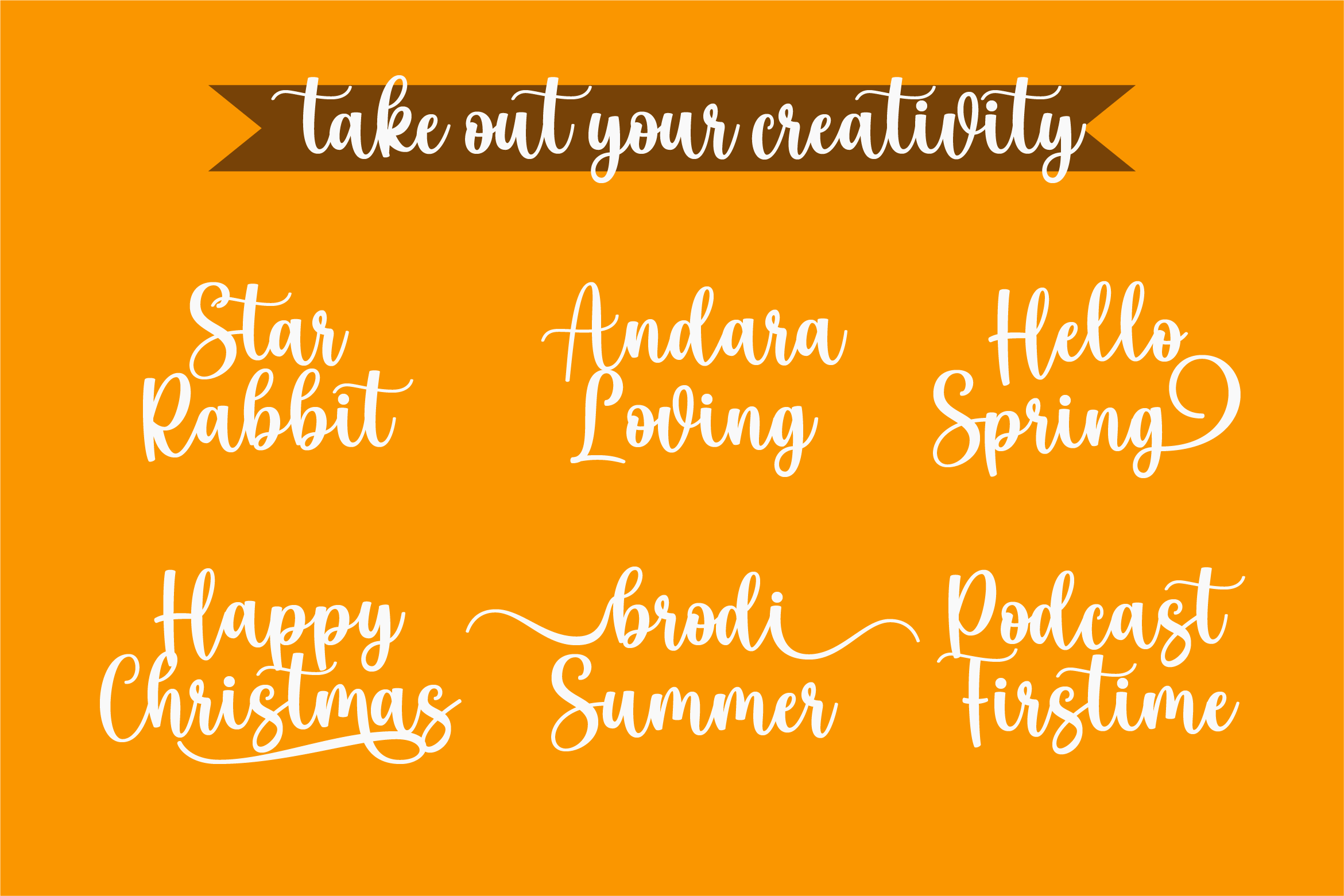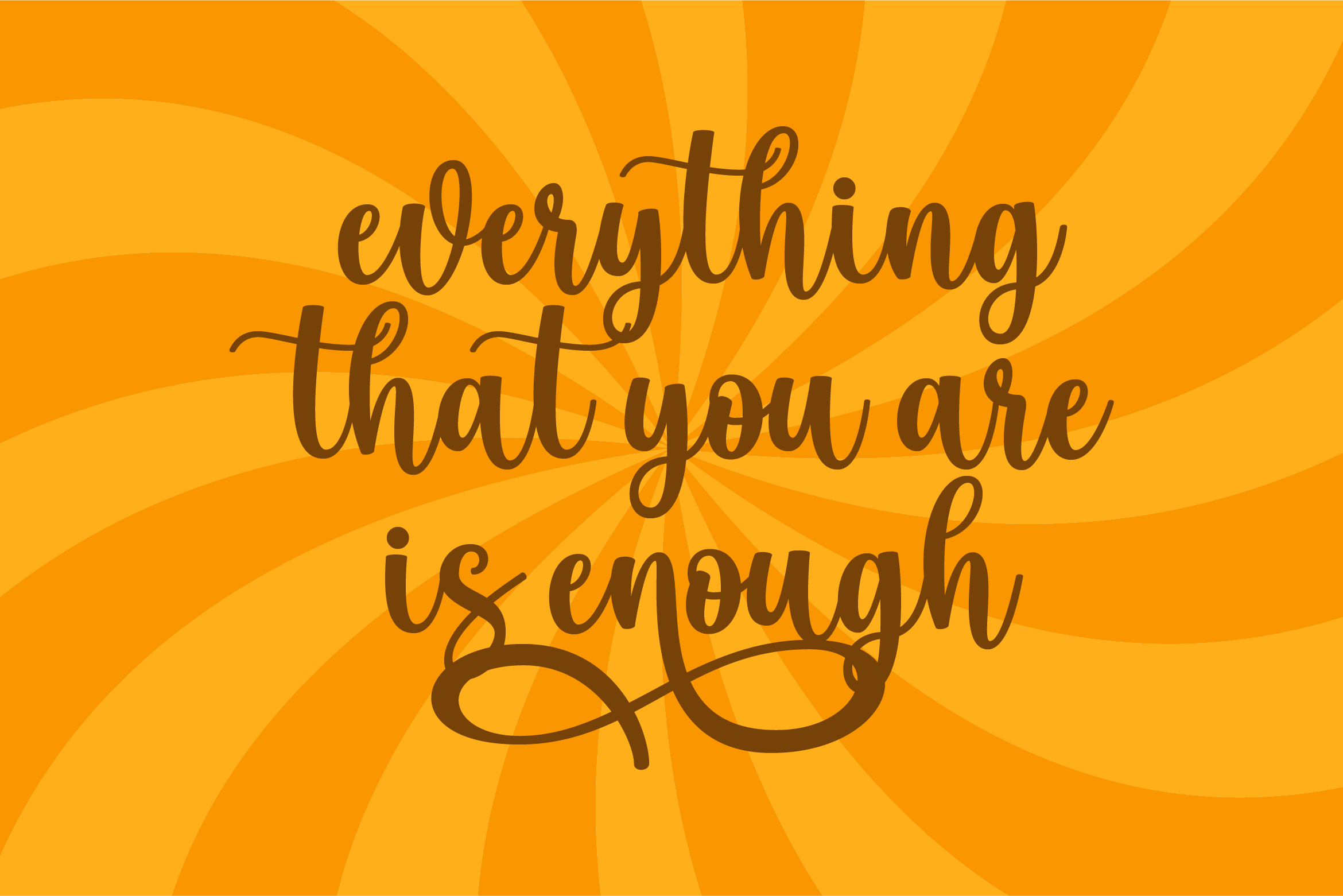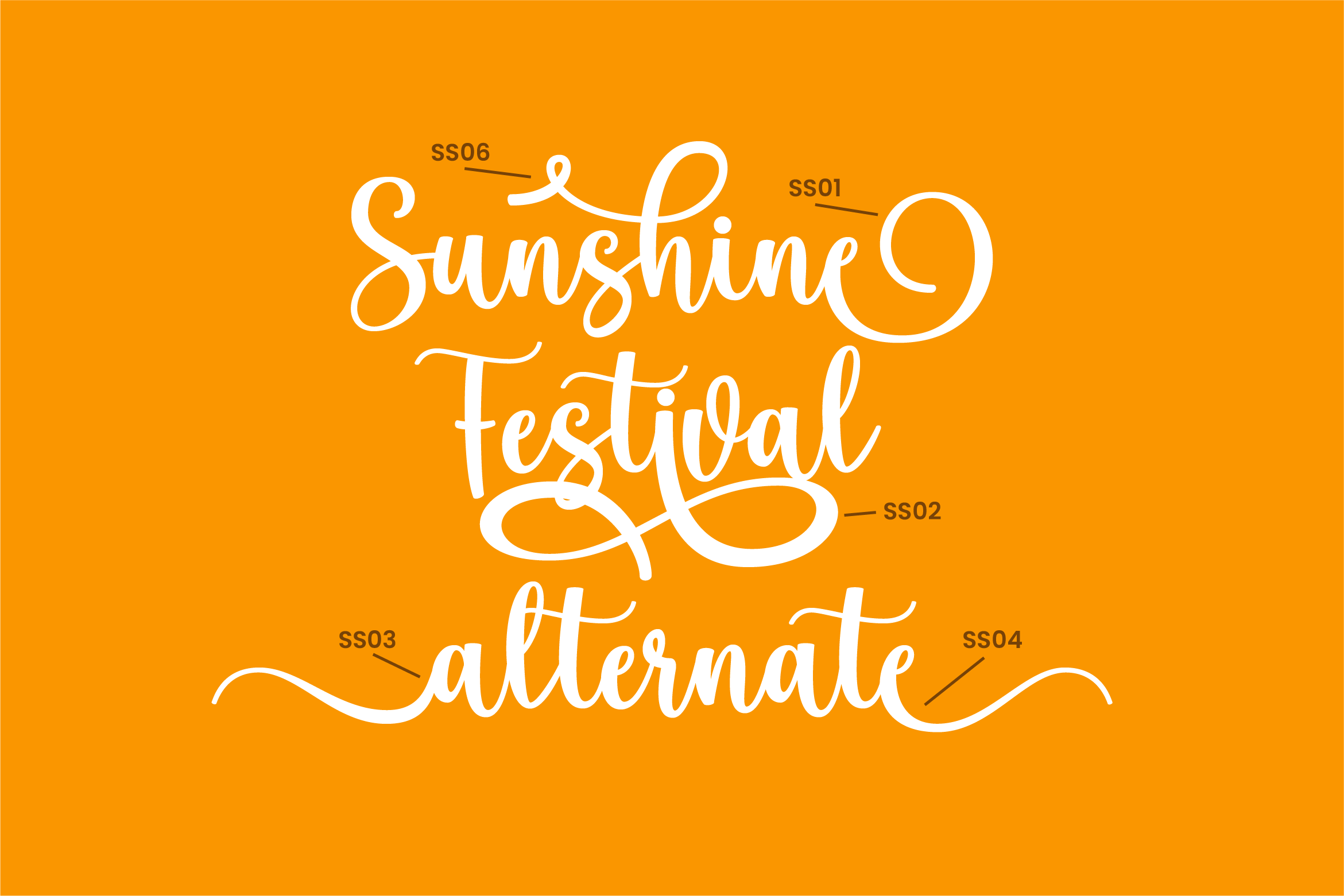
Sunshine Festival Calligraphy Font is a beautiful and romantic script font. It looks stunning on wedding invitations, thank you cards, quotes, greeting cards, logos, business cards, and every other design which needs a lovely handwritten touch. This font is PUA encoded, which means you can access all of the glyphs and swashes with ease!